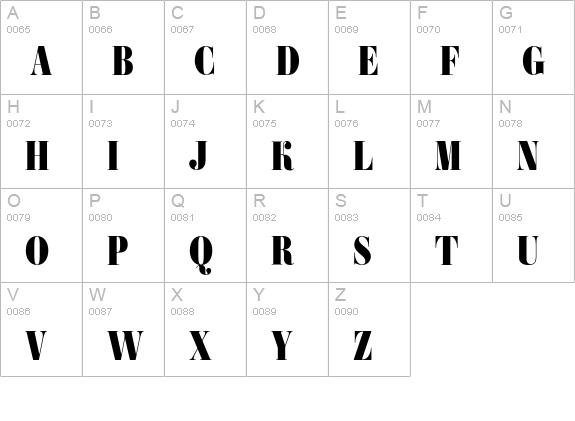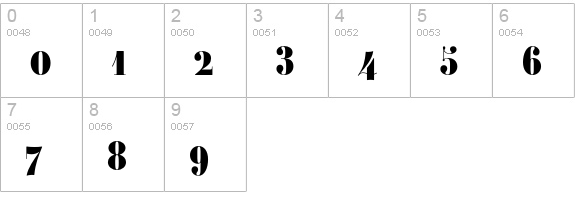
Ambroise Firmin Black is a maximum-weight, dramatic variant in the Ambroise typeface family \xE2\x80\x94 well suited to maximum-impact headlines, posters, and packaging.
Ambroise Firmin Black is a sophisticated and elegant typeface that exudes confidence and style. With its bold and striking design, this font commands attention and makes a statement in any project. The strong, clean lines and classic look of Ambroise Firmin Black make it perfect for headlines, branding, and editorial design. What sets Ambroise Firmin Black apart is its versatility. Whether used in print or digital media, this font adapts effortlessly to various design styles and projects, adding a touch of sophistication and sophistication to any layout. And the best part? Ambroise Firmin Black is available for free download at FontsMarket.com. This means that you can add this stunning font to your collection without breaking the bank. So why wait? Download Ambroise Firmin Black today and elevate your designs with its timeless appeal.